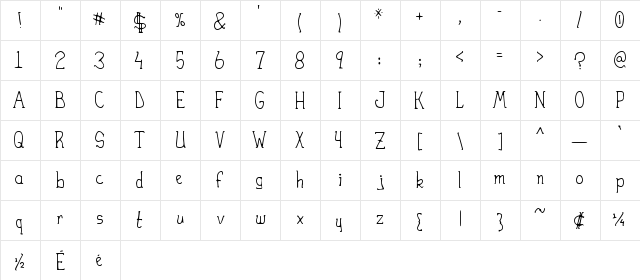
Heirany Slight Regular
Design Context for Heirany Slight Typeface
Heirany Slight takes a measured approach to typography — its balanced proportions and neutral character make it a reliable workhorse for both digital and print work. Its slender proportions lend an understated elegance to any composition.